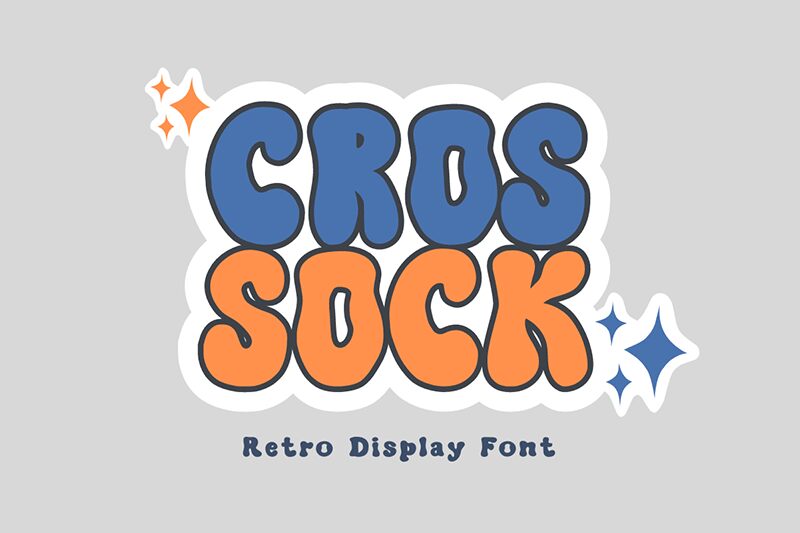
Crossock font by Muhammad Afif of Minimalisteyes is a groovy display font with a robust appearance and a retro vibe. A combination of rounded forms and bold characters makes it impossible to miss or to confuse with other typographies. Overall, the font appears friendly while still maintaining a strong look.
This free display font is the ideal choice for projects related to sports, games, festivals, music events, restaurants, films or cartoons for children, apparel designs among other uses. Use it in banners and billboards or in smaller-scale print publications including posters and flyers. Don’t miss using it online as well!